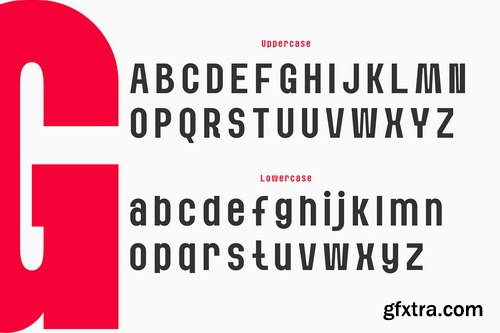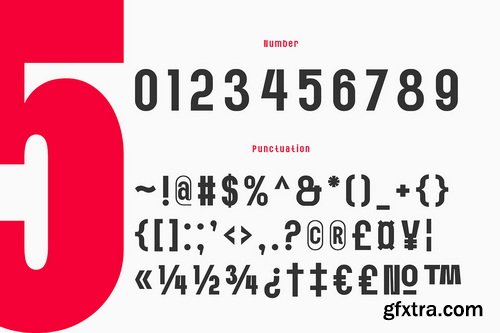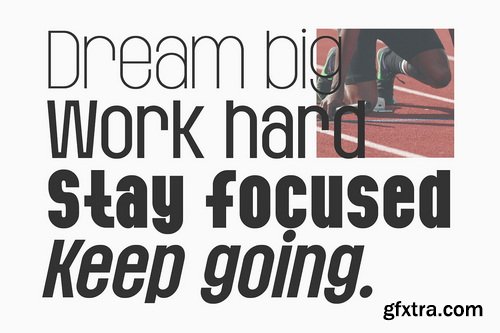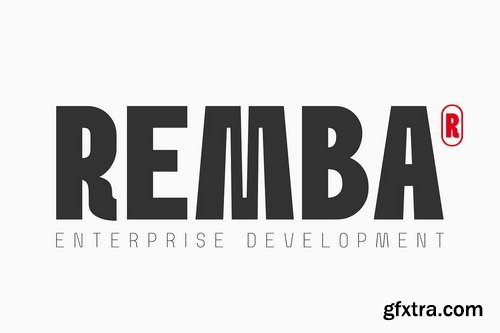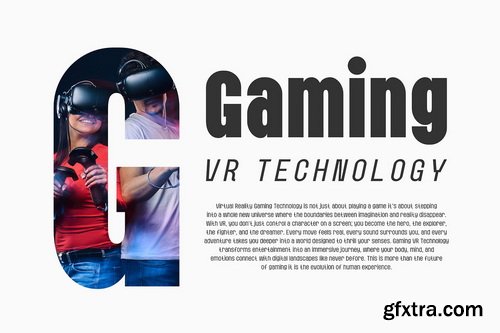
CreativeMarket - Bazig Modern Sans Serif Family - 10 Fonts
- Bazig Modern Sans Serif Family – Thin to Bold & Italic Bazig is a modern sans serif typeface family with a clean, elegant, and versatile look. It comes in styles from Thin to Bold, complete with Italic versions, giving you full flexibility for any design project.